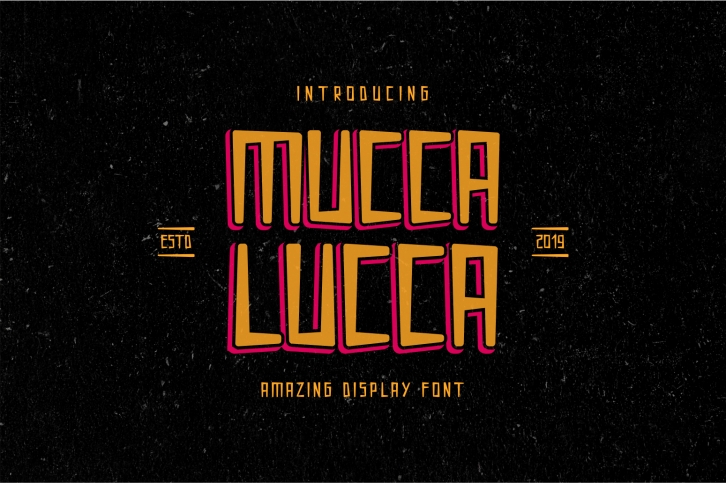
MUCCA-LUCCA is a great font that was designed by MENK. Imagine the amount of combinations you can create using this font! The archive is 11.55 MB and it was released on September 8, 2019. MUCCA-LUCCA looks beautiful on wedding invitations, greeting cards, logos, posters, labels, t-shirt designs, logos, business cards and is perfect for use in ink or watercolor works, fashion, magazines, packaging and food menus, children's books and more!